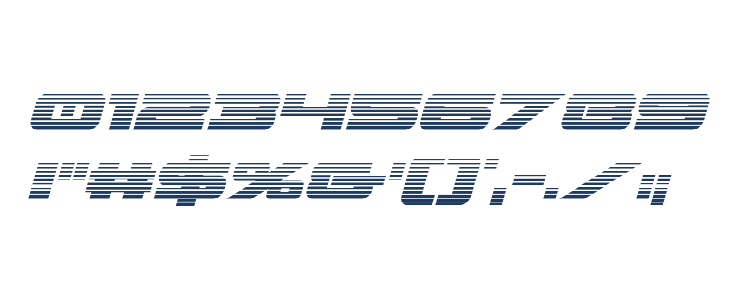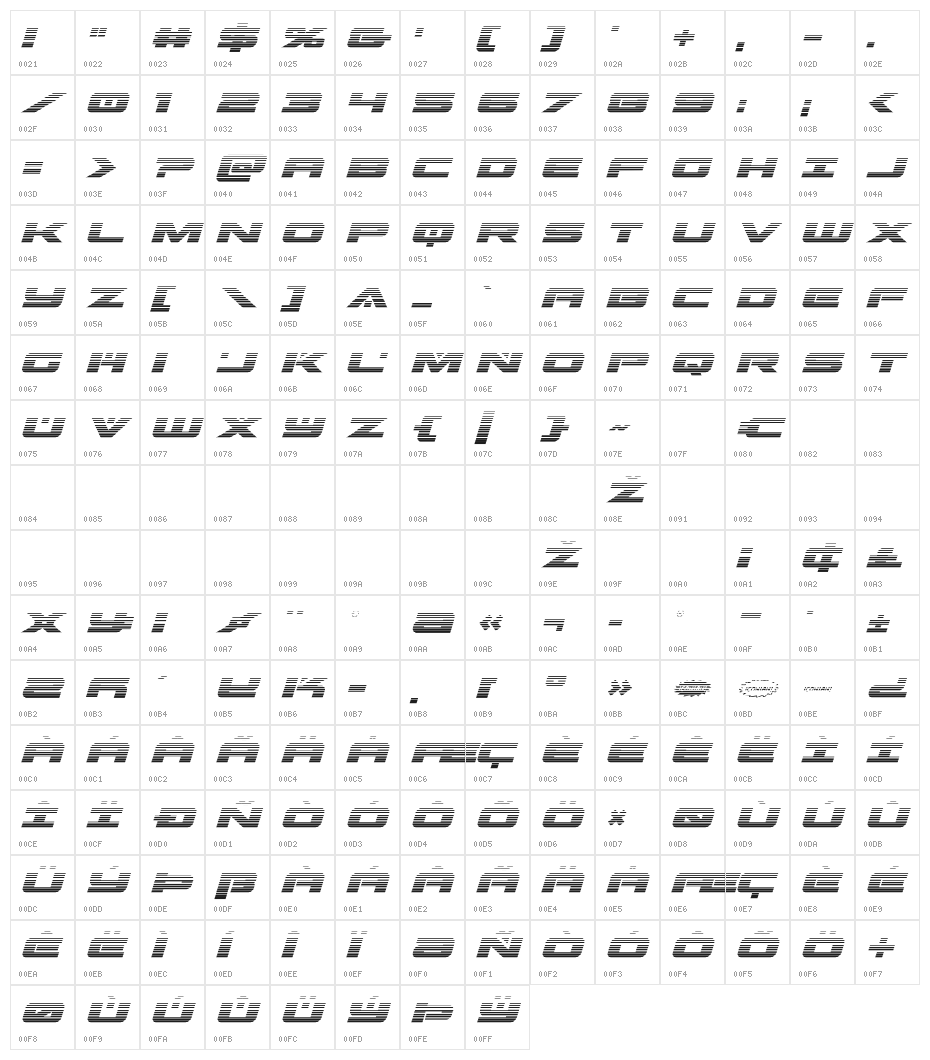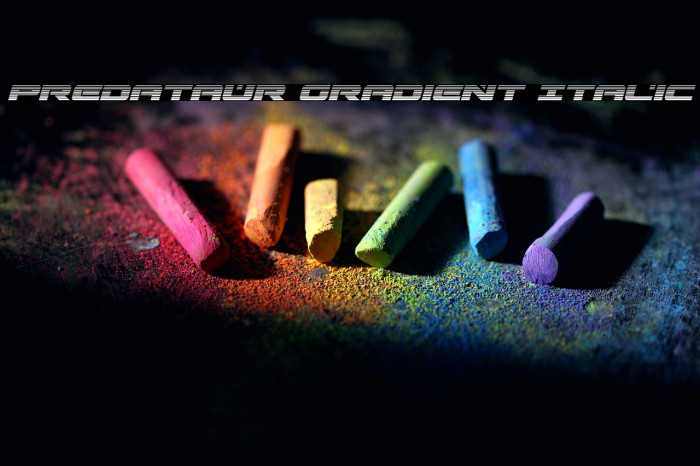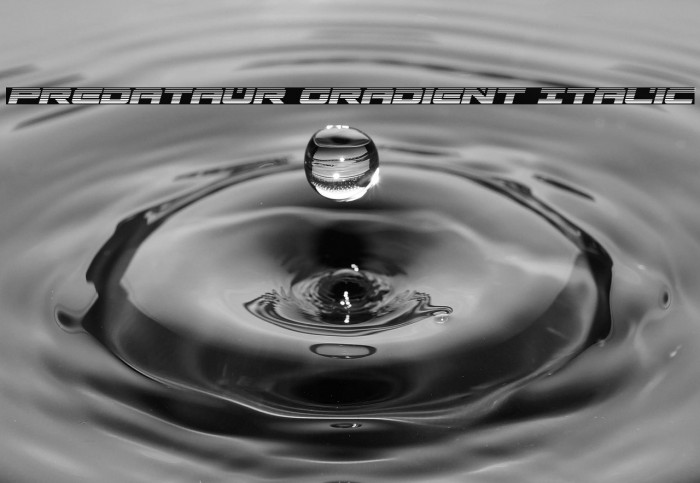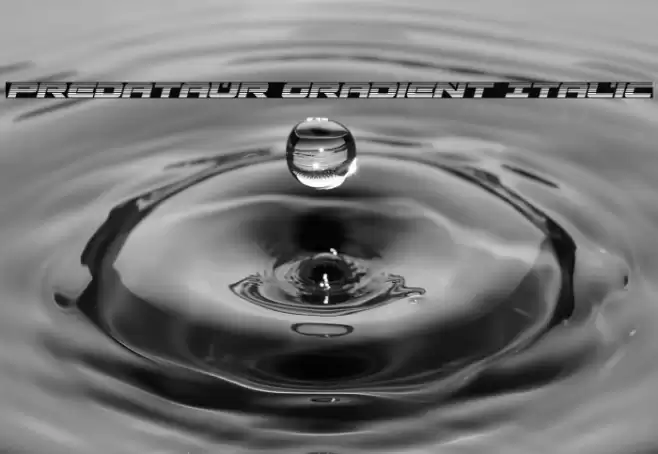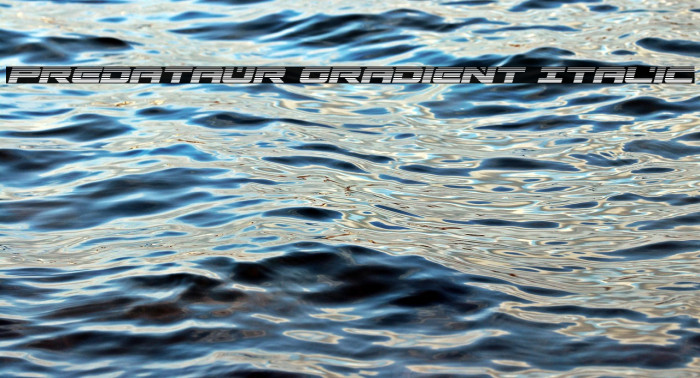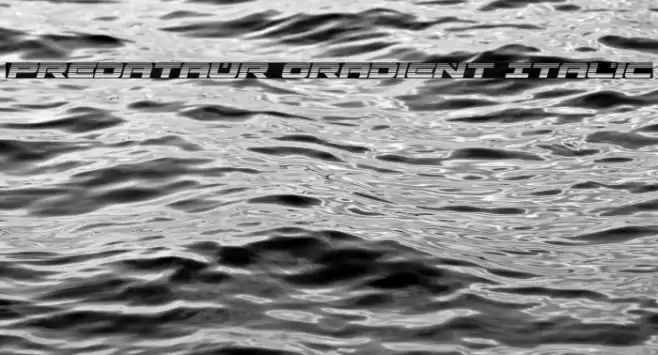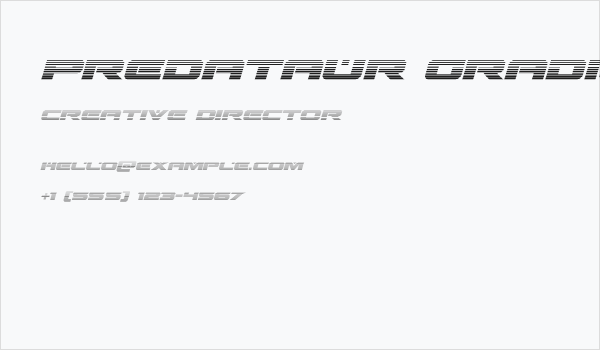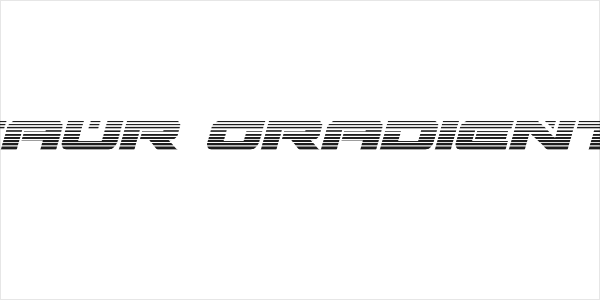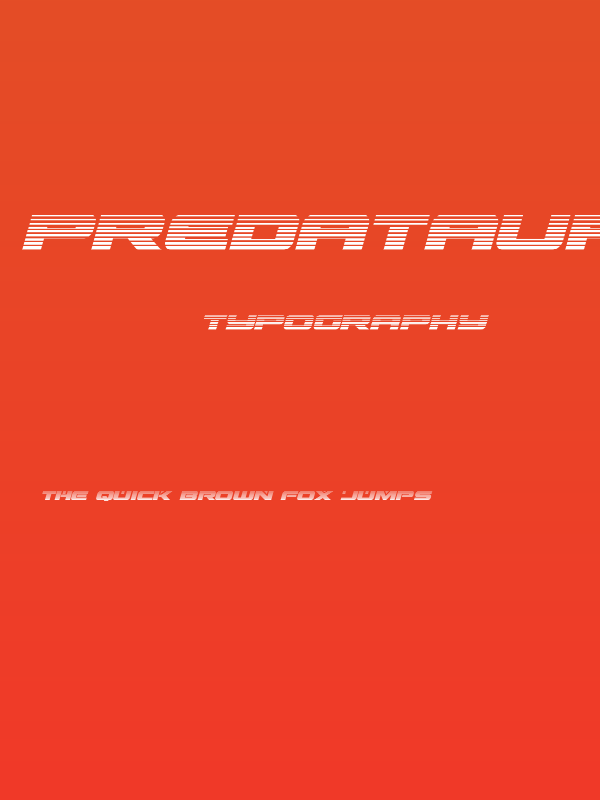
Predataur Gradient Italic Font
Predataur Gradient Italic Description
This font features a futuristic and dynamic design with a distinct italic slant, giving it a sense of motion and speed. The characters are composed of multiple horizontal lines, creating a gradient effect that adds depth and texture. This unique style makes it stand out, perfect for projects that require a modern and edgy look. The uppercase and lowercase letters maintain a consistent style, while the numerals and special characters complement the overall aesthetic. The font's design is both bold and eye-catching, making it suitable for attention-grabbing headlines and logos.
| Proposed Projects | Ideal for technology-themed projects, futuristic branding, sports team logos, and dynamic posters. |